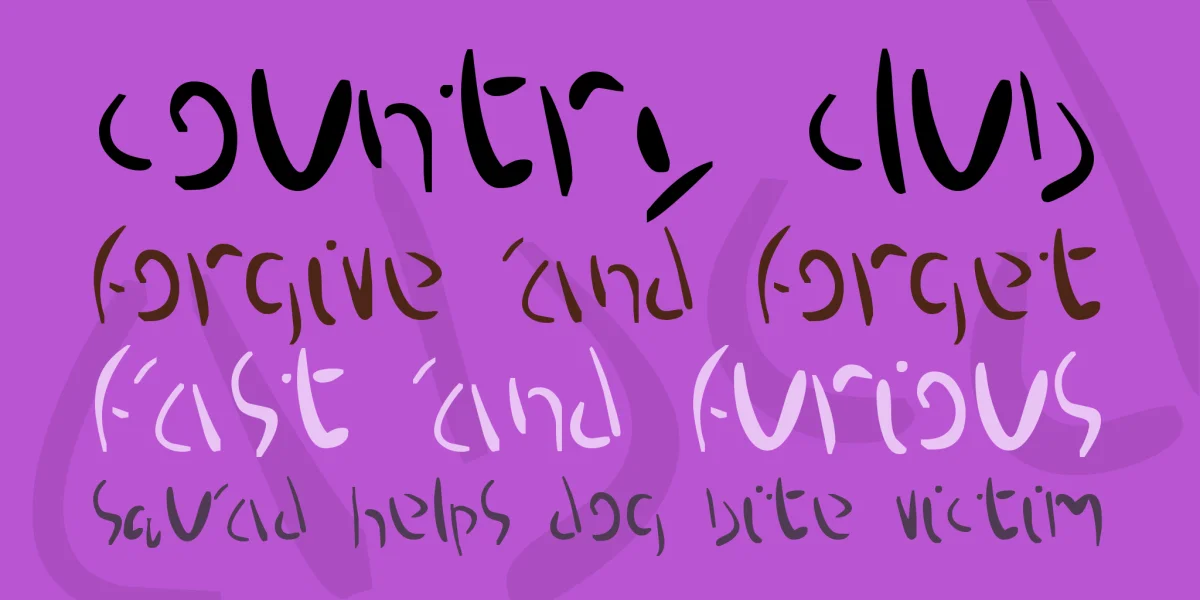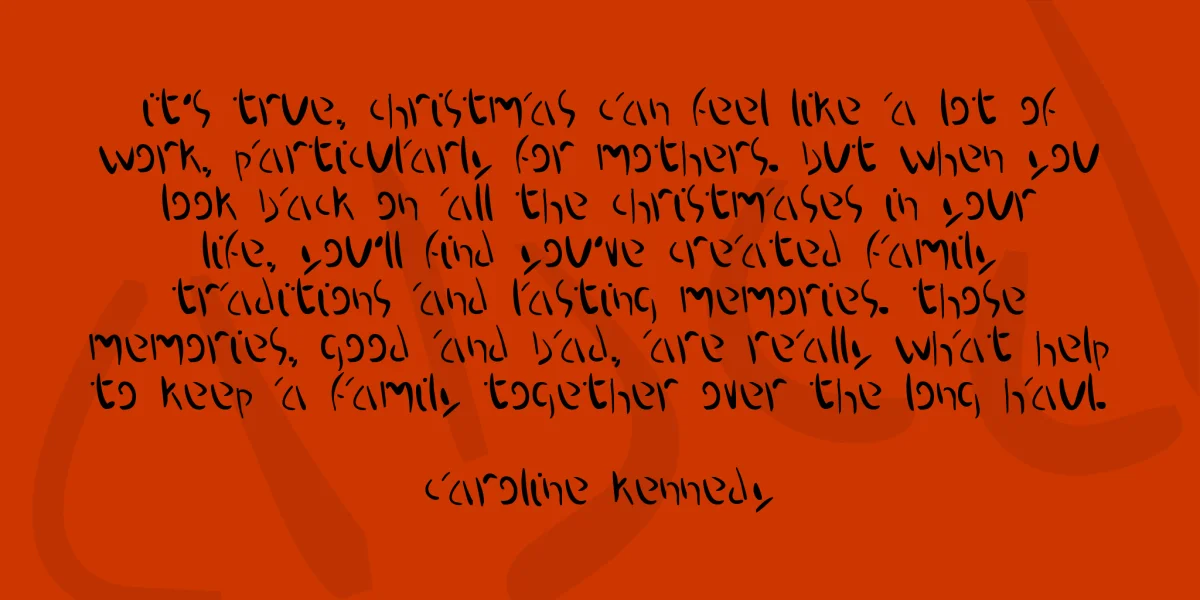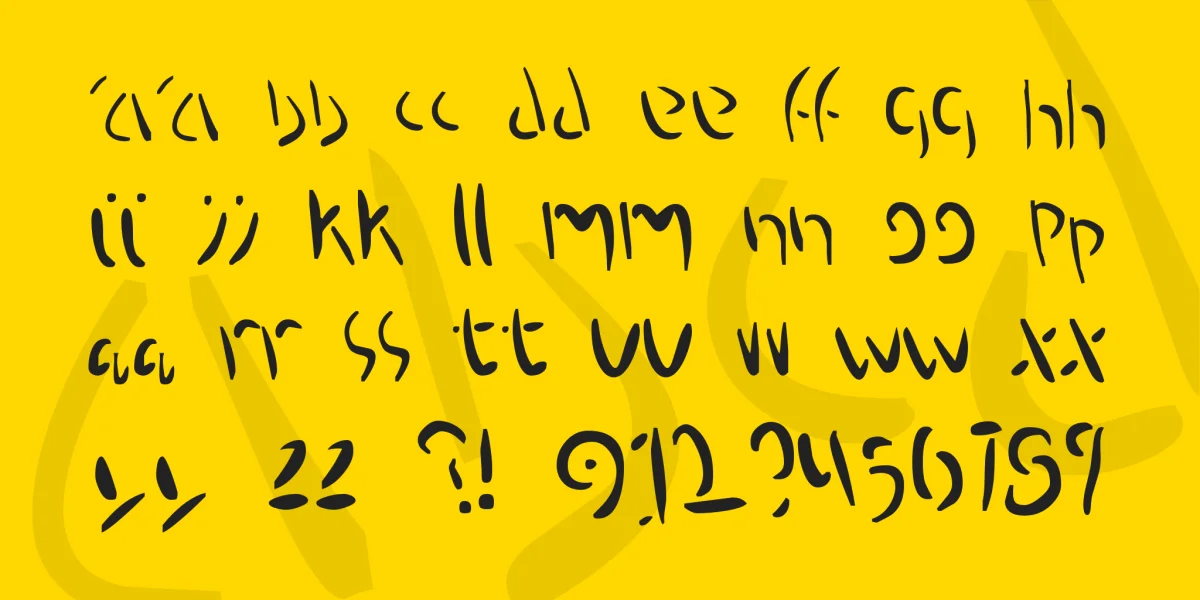
(Caps/Lower [same], Numbers, some Punctuation, some special) is a vaguely quill-like font, with exaggerated strokes and the oft dropped line. An interesting font, albeit difficult to read at smaller sizes. Definitely not recommended for body text.